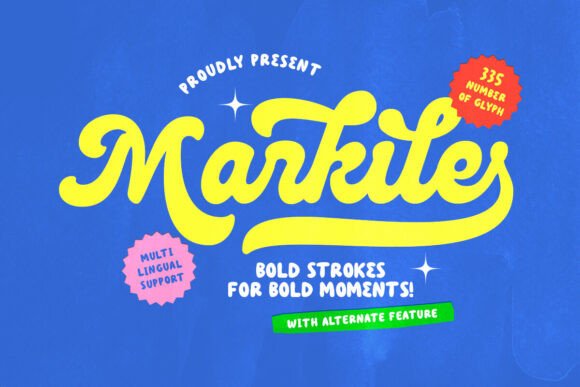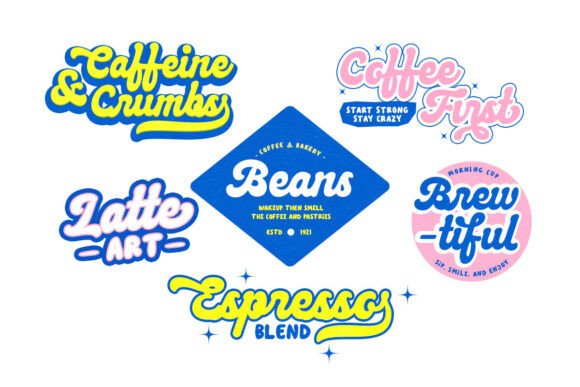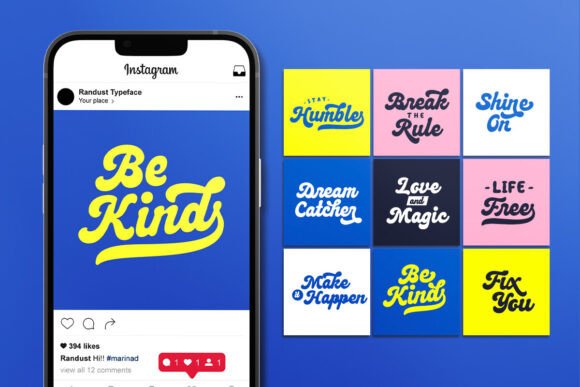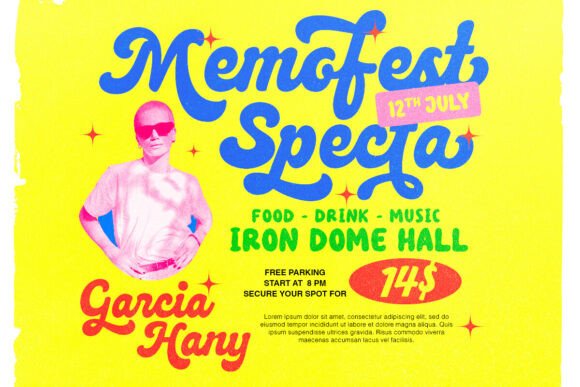
Markile Font: Bold Script for Playful Logo Design & Branding
About the Markile Font
Add a touch of class to your work with the Markile Font, a truly exceptional typeface. Markile is a bold script with rounded shape. This script is suitable for logotype, branding, or quotes. With bunch of alternates that you can use with opentype features, you can make your designs more stunning and fancy. Markile also support multi language.
Markile’s bold, rounded forms lend themselves perfectly to headlines, short impactful statements, and logos requiring a touch of playful elegance. It excels in branding projects for companies with a sophisticated yet approachable image, particularly those in fashion, beauty, or lifestyle sectors. Avoid using Markile for extended body text or UI elements; its decorative nature compromises readability in smaller sizes or dense blocks of text.
Pairing Markile effectively requires a contrasting yet harmonious companion. A clean sans-serif like Lato or Open Sans provides excellent balance, grounding the script’s boldness with modern simplicity. For a more classic feel, consider pairing it with a serif like Garamond or Playfair Display. These pairings offer visual contrast that prevents the design from feeling overly busy while enhancing Markile’s inherent flair.
Its personality is best described as bold yet friendly, sophisticated but approachable—a balance of elegance and playfulness making it ideal for projects needing a touch of personality without sacrificing professionalism.
Markile Font Usage Examples
Markile Font Example